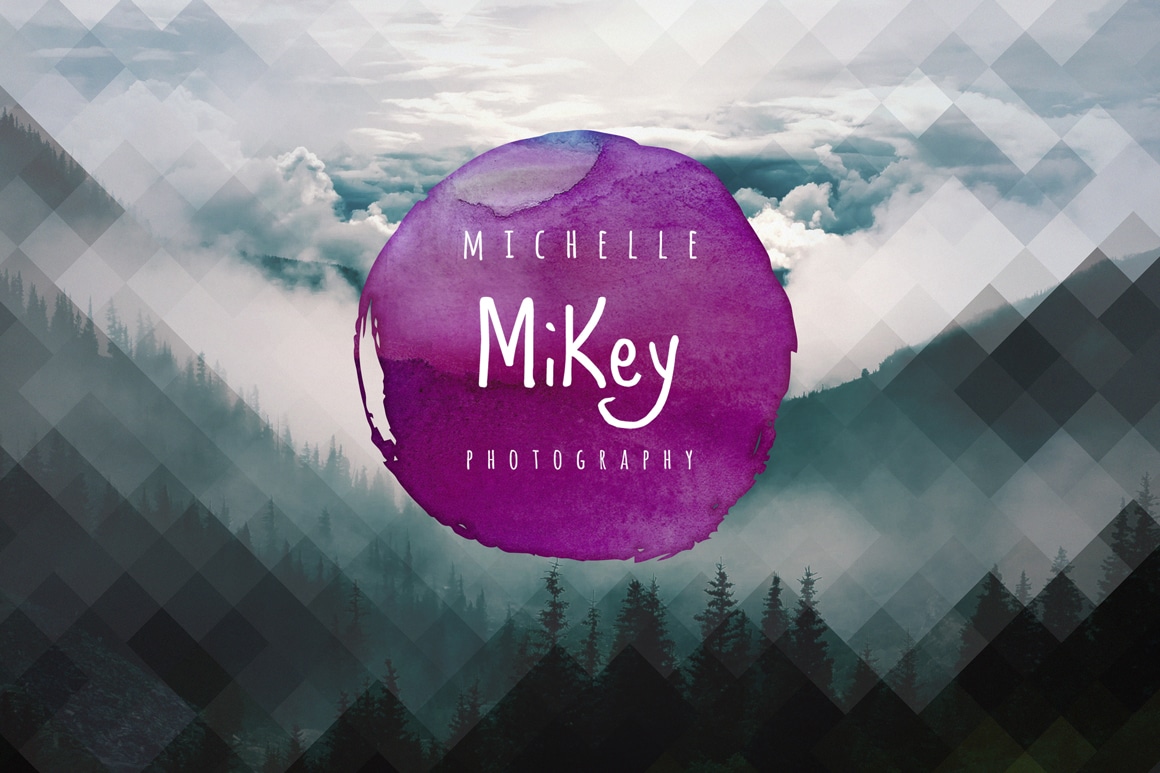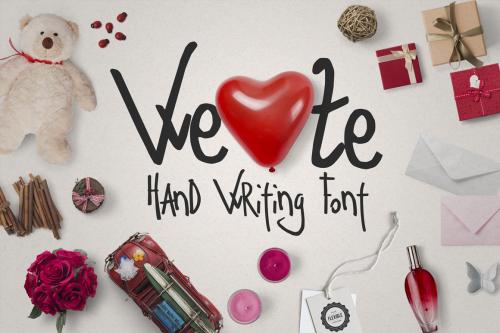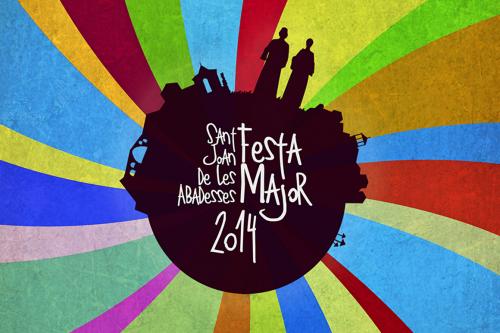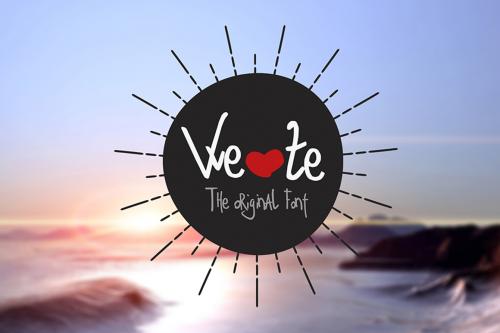
Ze Typeface is a small cosy family including 4 unique fonts. This hand-written font works well for creating many types of designs. In the images above you will be able to get an idea of the capabilities of this font. The package comes with free bonus elements!
All letters. All punctuation. All numbers.